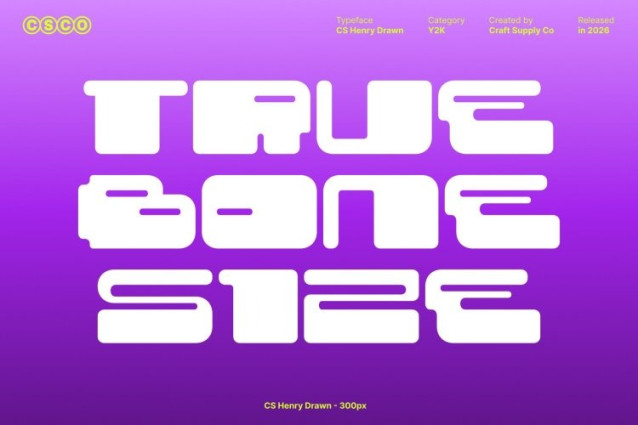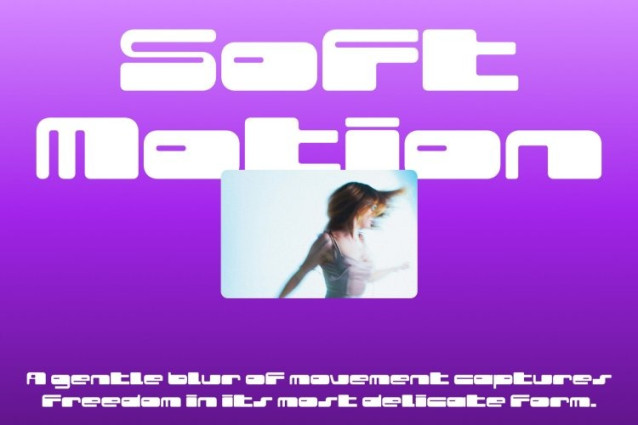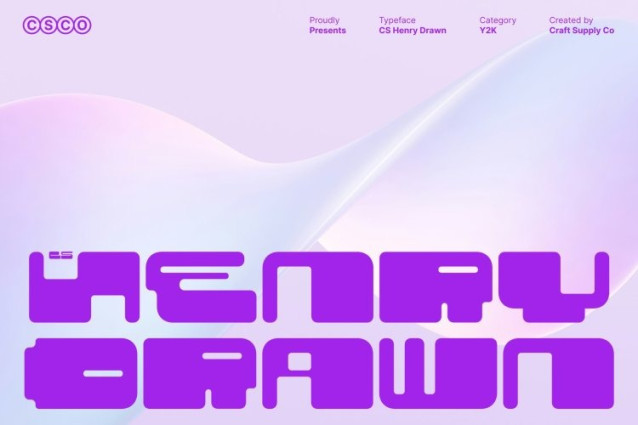
CS Henry Drawn Font
CS Henry Drawn Font This is a Y2K-inspired display font that captures the vibrant energy of early 2000s aesthetics. Enhanced with a subtle drawn texture, each character takes on a unique, handcrafted quality, giving the font artistic flair and personality. Its bold outlines and soft, flowing shapes create a dynamic balance between futuristic edge and approachable charm.
Distinctive Characters with Artistic Texture
Every letter in this font is designed to feel lively and original. The drawn effect adds visual depth, softening the geometric forms while introducing playful irregularities that make each glyph feel hand-crafted. This results in a font that is energetic, textured, and full of character—perfect for projects that want to stand out.
Futuristic Y2K Style with Digital Vibes
Combining nostalgia with modern creativity, this font evokes the optimism and tech-inspired aesthetics of the early 2000s. Its shimmering, expressive design works beautifully in digital contexts, giving a fresh, playful, and energetic personality to every layout.
Ideal for Digital Branding, Music, and Party Graphics
From music visuals and party posters to digital branding and Y2K-themed campaigns, this font injects energy and fun into every project. Its unique hand-drawn texture and bold-yet-soft shapes make it perfect for designs that need to be vibrant, memorable, and distinctly stylish.